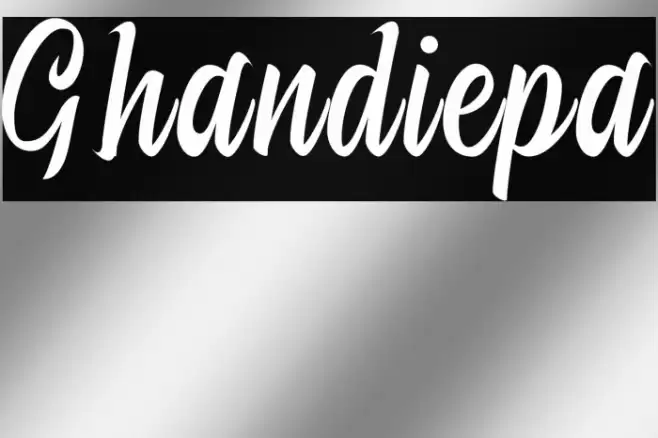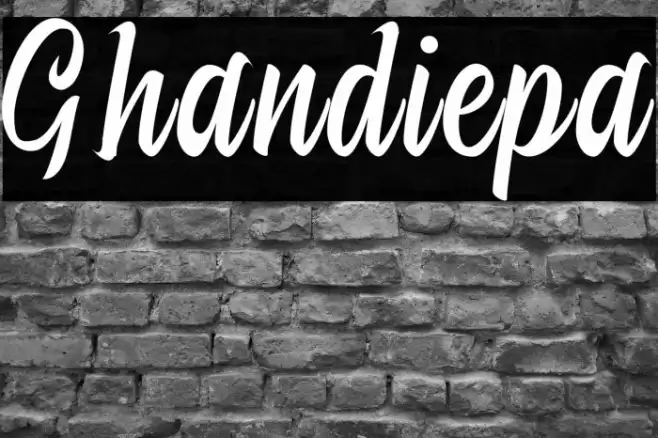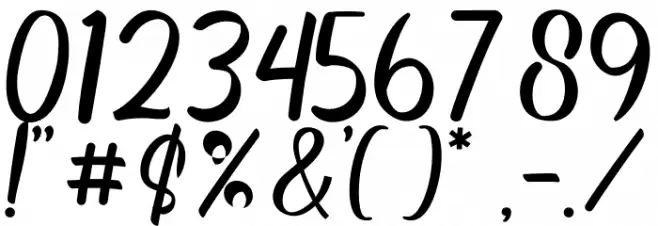
Ghandiepa Font
Ghandiepa Description
This font features a dynamic and flowing script style, characterized by its elegant and smooth curves. The uppercase letters are slightly more structured, maintaining a consistent height with subtle variations in stroke width, giving them a refined yet approachable appearance. The lowercase letters are more expressive, with sweeping ascenders and descenders that add a sense of movement and grace. The numerals are bold and clear, ensuring readability while maintaining the overall aesthetic. Special characters are thoughtfully designed to complement the letterforms, making this font versatile for various applications.
A dynamic and elegant script font with smooth curves and expressive letterforms from Regular fonts.
- Proposed Projects: Ideal for wedding invitations, branding, logo design, and elegant packaging.
- Overall Style: Elegant
- Use Case: Logos, Invitations, Branding